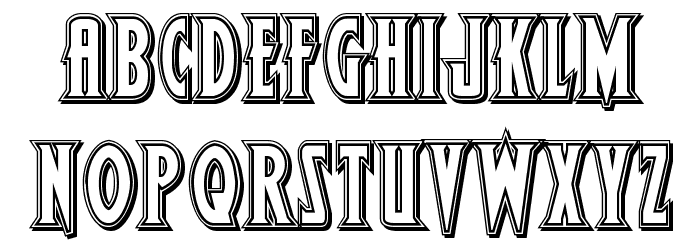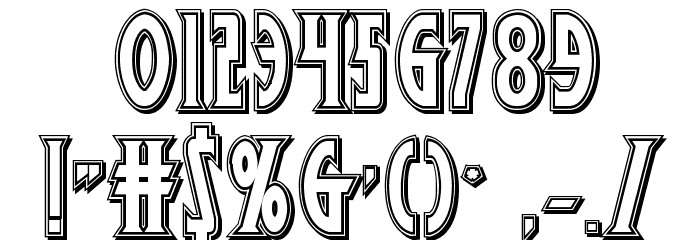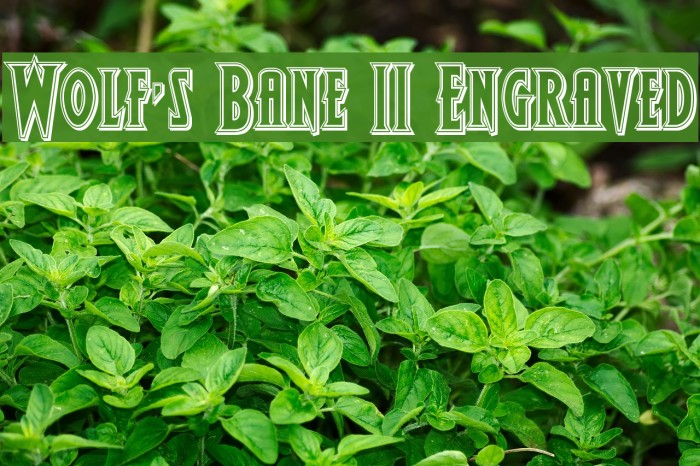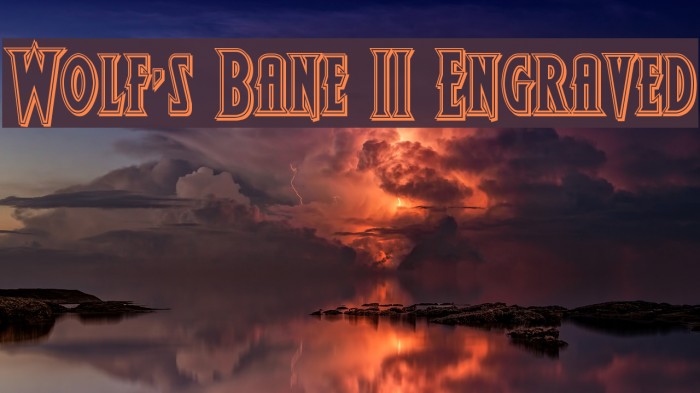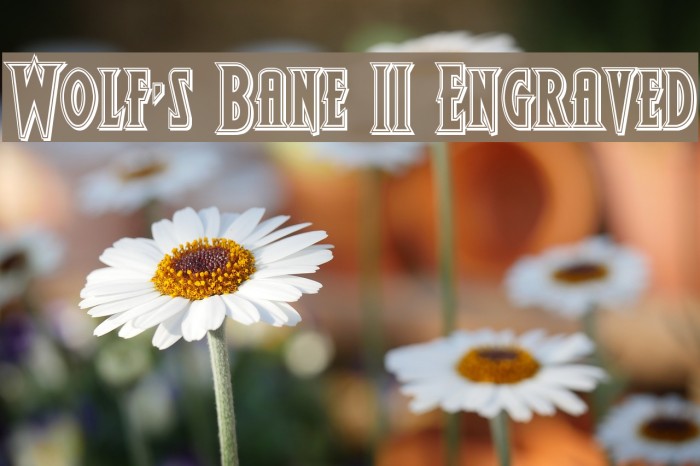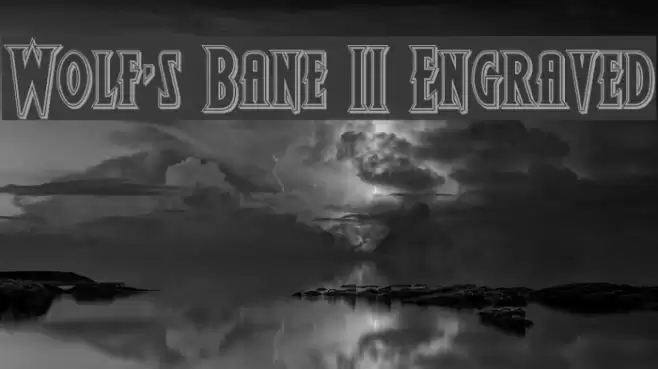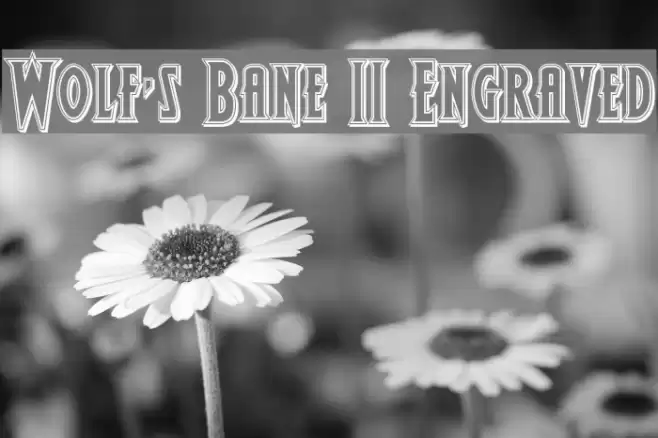
Wolf's Bane II Engraved Font
This font features a bold and striking design with an engraved, three-dimensional appearance. The characters are outlined with a double line, creating a shadow effect that adds depth and dimension. The style is reminiscent of vintage signage or classic movie posters, with sharp angles and a strong presence. The uppercase letters are particularly prominent, with a consistent width and height that ensures readability. The numerals and special characters maintain the same engraved style, making them suitable for a variety of decorative purposes.
A bold, engraved font with a vintage, three-dimensional style.
- Proposed Projects: Ideal for vintage-themed posters, signage, logos, and any project requiring a bold, eye-catching typeface.
- Overall Style: Vintage